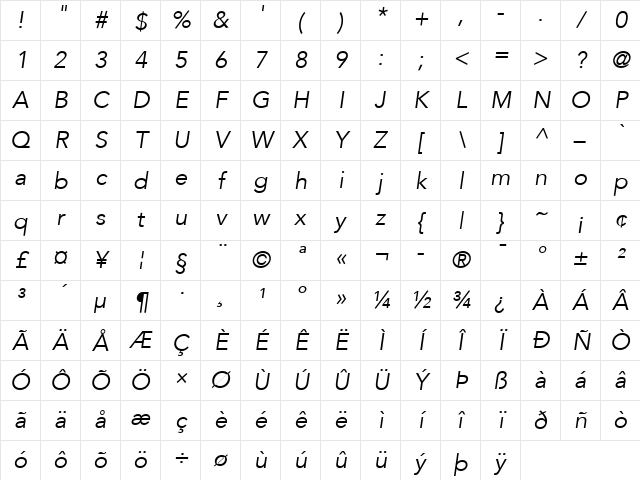
Avenir Regular
Avenir Family
Complete Avenir Regular glyph index. Displaying only characters natively supported by Avenir Regular font.
Design Context for Avenir
Avenir is a composed and adaptable typeface that performs quietly and consistently across a wide range of design contexts.
Pro Tip: Use Avenir in both headline and body roles to test its range before committing to a single application.